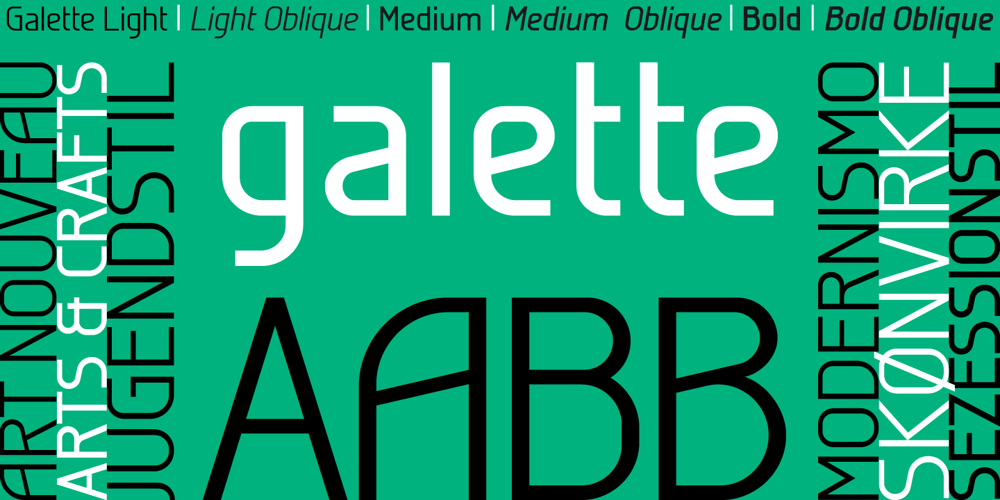
Galette
Galette font
Galette Font Family was designed by Jan Schmoeger and published by Paragraph. Galette contains 6 styles and family package options. Galette is a contemporary all-purpose sans-serif for printing and online delivery, allowing the use of one layout both as printed material and online without loss of quality or legibility. Not only a high resolution printing font with extensive kerning, it was designed from the ground up for clear and uniform display on the computer screen. It displays more predictably than the traditional fonts: no overhangs are used, the stroke thickness of capitals and lower case letters is identical, making hinting or antialiasing smoother at any point size and zoom combination. The hint of Art Nouveau makes the font more expressive and individualistic. A number of alternative capitals allows the font’s expression to be turned up or down at will. A generous complement of accented characters (Western & Eastern European, Baltic, Turkish) enables multi-lingual use.